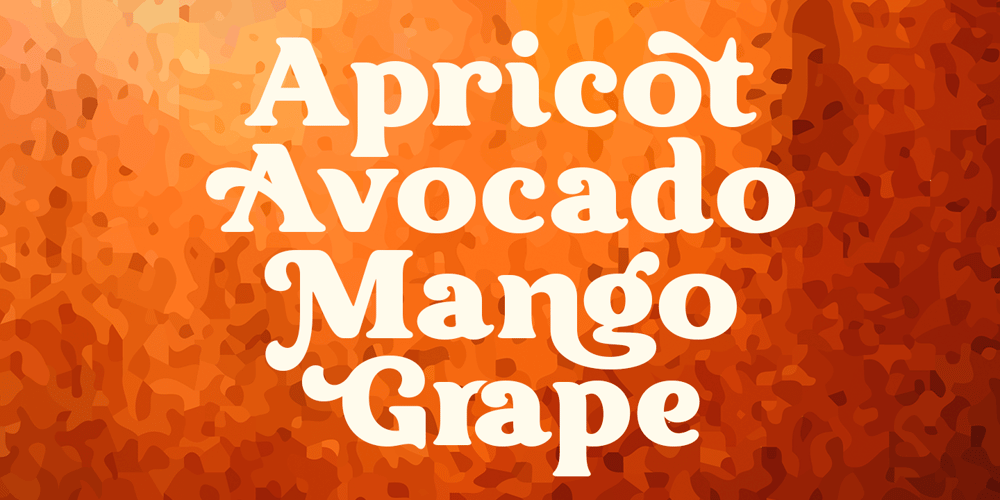
Midnight Illusion Font Family was designed by Idhham Cholid Rikzano Yahya and published by Shakira Studio. Midnight Illusion contains 2 styles and family package options. Introducing Midnight Illusion – Bold Retro Serif Font with Subtle Curves at Every Corner!Midnight Illusion isn’t just your ordinary serif font; it’s a bold statement of retro elegance with a modern twist. With its bold characters and smooth curves at every corner, Midnight Illusion perfectly embodies the essence of #RetroFonts and #TypographyTrends.Crafted for designers seeking to make a lasting impression, Midnight Illusion offers a unique blend of boldness and sophistication. Its smooth curves add a touch of finesse to each character, making it ideal for logos, headlines, and branding materials that demand attention.Elevate your designs with Midnight Illusion and join the trend towards bold retro serif fonts. Make a statement with your typography and captivate your audience with Midnight Illusion’s timeless charm and modern appeal! #MidnightIllusion #BoldSerif #DesignEleganceHere’s what you get: Regular & Italic All Multilingual symbol Opentype features ( ligature, alternate ) Accessible in the Adobe Illustrator, Adobe Photoshop, Adobe InDesign, even work on Microsoft Word. PUA Encoded Characters – Fully accessible without additional design software. Multilingual character supports : (Afrikaans, Albanian, Catalan, Croatian, Czech, Danish, Dutch, English, Estonian, Finnish, French, German, Hungarian, Icelandic, Italian, Lithuanian, Maltese, Norwegian, Polish, Portuguese, Slovenian, Spanish, Swedish, Turkish, Zulu)Follow my shop for upcoming updates, and for more of my work,Thank you!